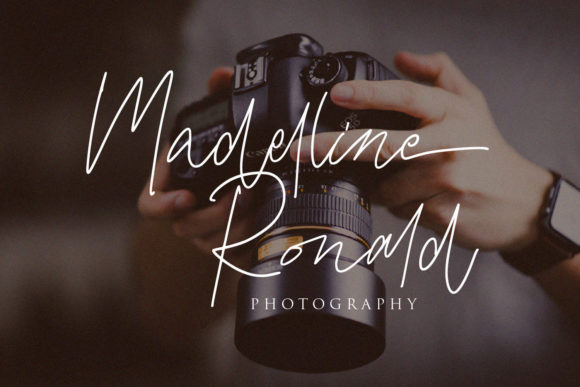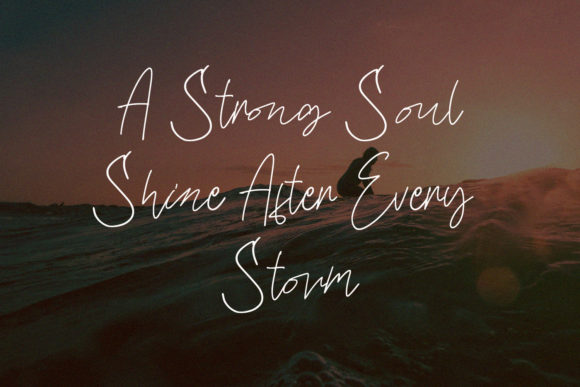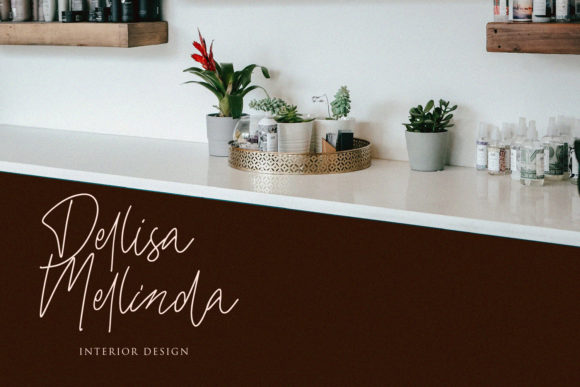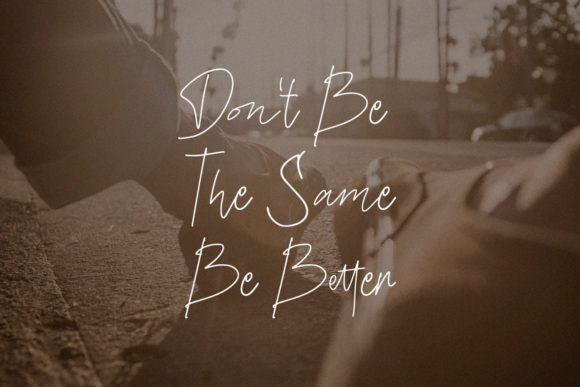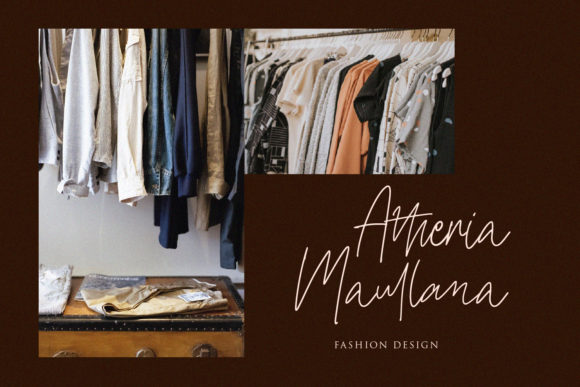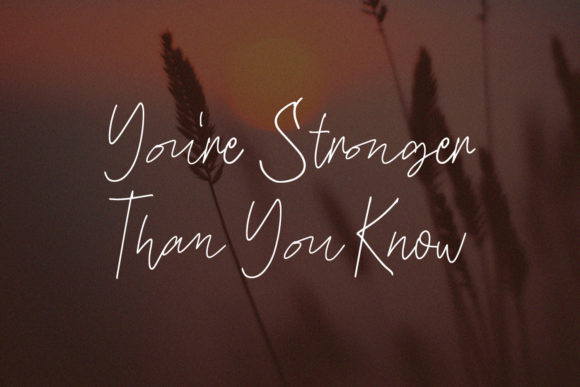
Introduction to Daltana Font
Have you ever found yourself staring at a blank canvas, wondering where to begin a creative project? The spark of inspiration is often just a font away. As designers, we know the importance of a well-chosen font in bringing our ideas to life. And when it comes to adding a touch of elegance and romance, the Daltana Font is an exceptional choice.
With its friendly and modern script style, the Daltana Font is a valuable design resource for any creative project. Whether you’re working on a wedding invitation, a birthday card, or a DIY home decor project, this high-quality font will elevate your design and add a personal touch. Plus, with a transparent background, you can easily layer it with other elements to create a stunning visual effect.
Key Features of Daltana Font
- Unique and stylish design: The Daltana Font is a high-quality design resource ideal for creative projects that require a touch of elegance and sophistication.
- Transparent background: This font features a transparent background, making it easy to customize and integrate into various design elements.
- Perfect for creative projects: The Daltana Font is an excellent choice for designers working on creative projects, such as branding, packaging, and editorial design.
Honest Review: Daltana Font
I recently came across the Daltana Font and I must say, it’s been a valuable addition to my design resource collection. This free download has been a game-changer for my creative projects.
- ✨ The Daltana Font offers a wide range of styles and weights, making it perfect for various design applications.
- ✨ The font’s transparent background makes it easy to integrate into any design project.
- ✨ High quality designs are always a priority, and the Daltana Font does not disappoint.
However, there are a few limitations I’ve noticed:
- ⚠️ The font’s versatility can be a double-edged sword, as some of the styles may not be suitable for every design project.
Overall, I’m really impressed with the Daltana Font and would highly recommend it to fellow designers. It’s a great addition to any design resource collection and has been a valuable asset for my creative projects.
The Daltana Font is ideal for creative projects such as logos, brochures, and business cards. It’s also perfect for presentations, documents, and websites that require a unique and high-quality font style.
Yes, the Daltana Font is designed to work well with a transparent background. The font’s design features a clean, modern aesthetic that looks great against a transparent or semi-transparent background. Simply use the font in your design software, and adjust the background settings as needed.